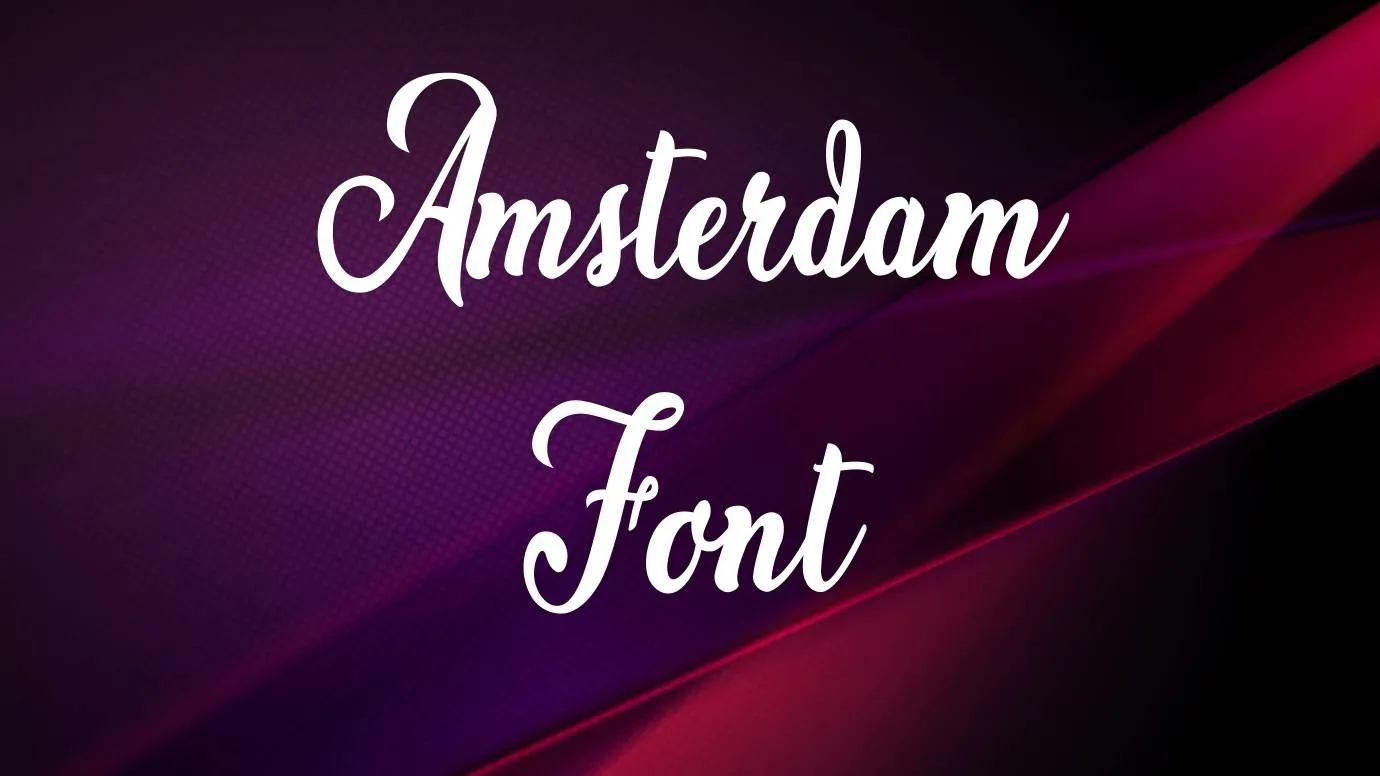
Amsterdam Font Family is a modern script font that has bold strokes. This interesting font was designed by Billy Argel Fonts. Its standard look is so attractive and useful for different design purposes.
This amazing font is a collection of designs that are so famous among many designers. This bold script font is wonderful for new designs by making pairing it with budweiser font.